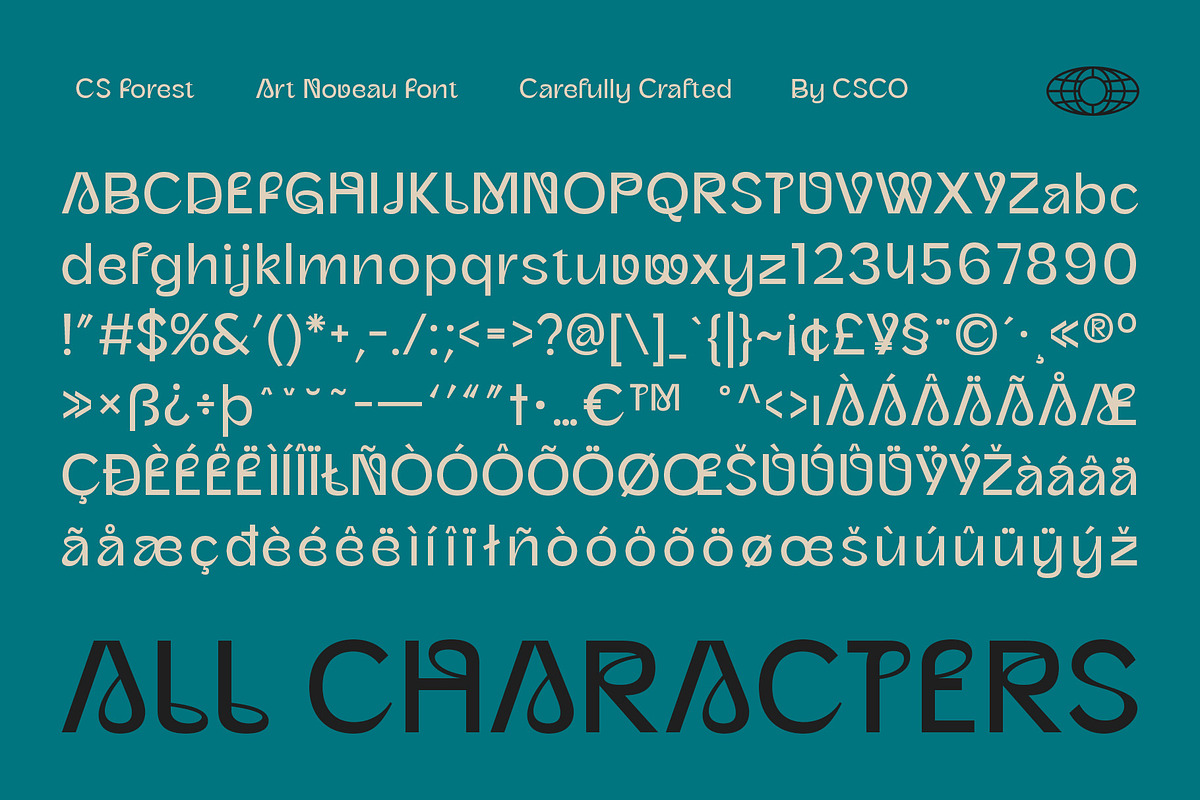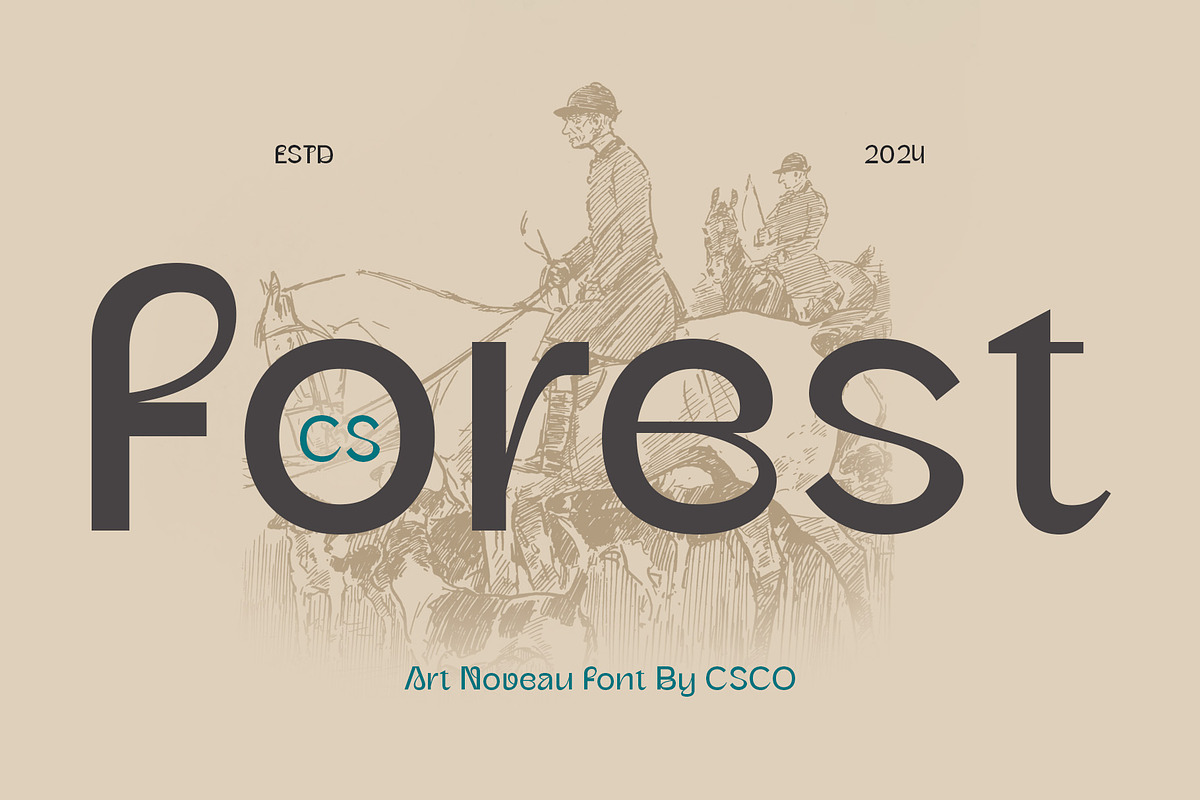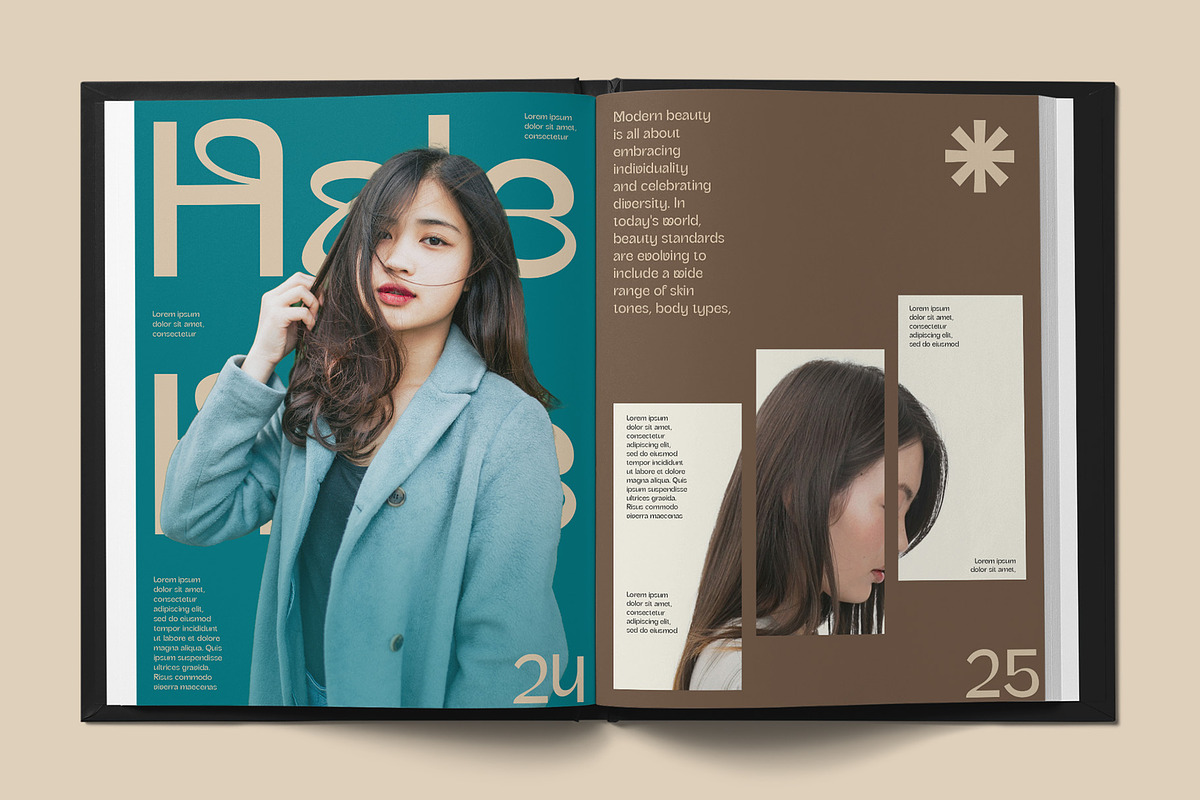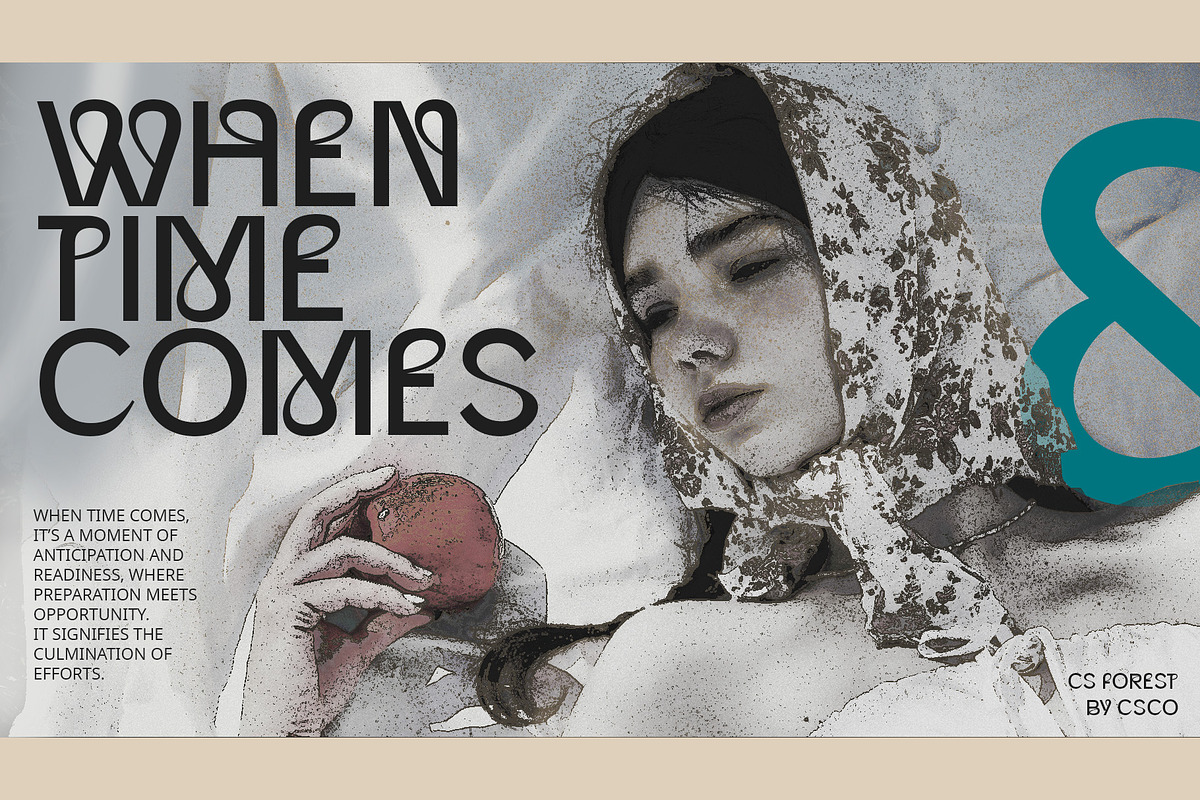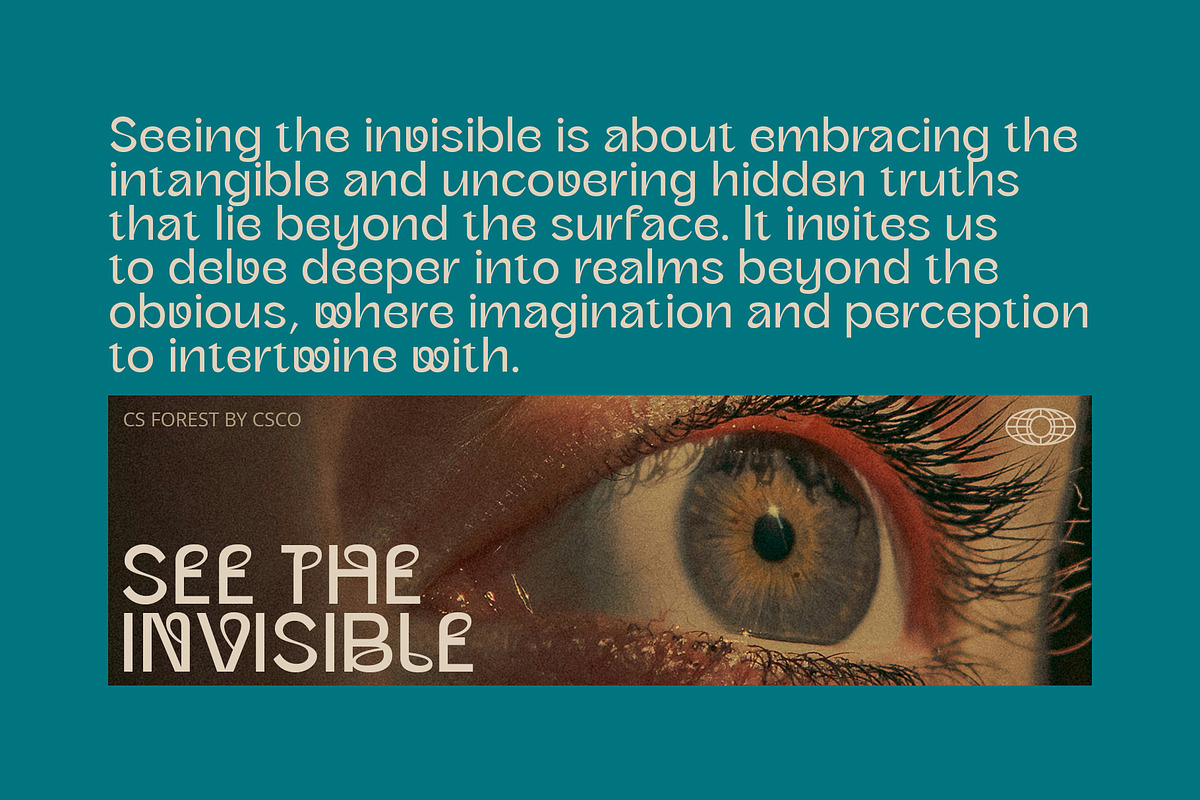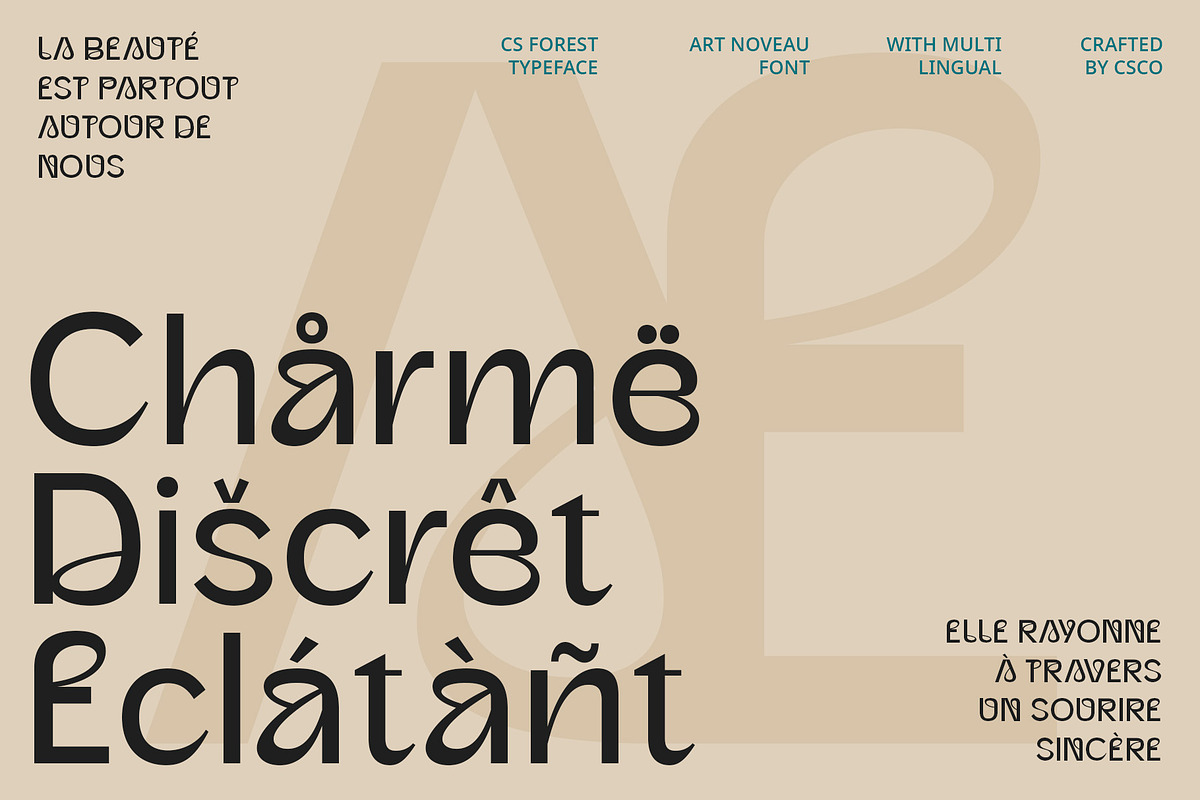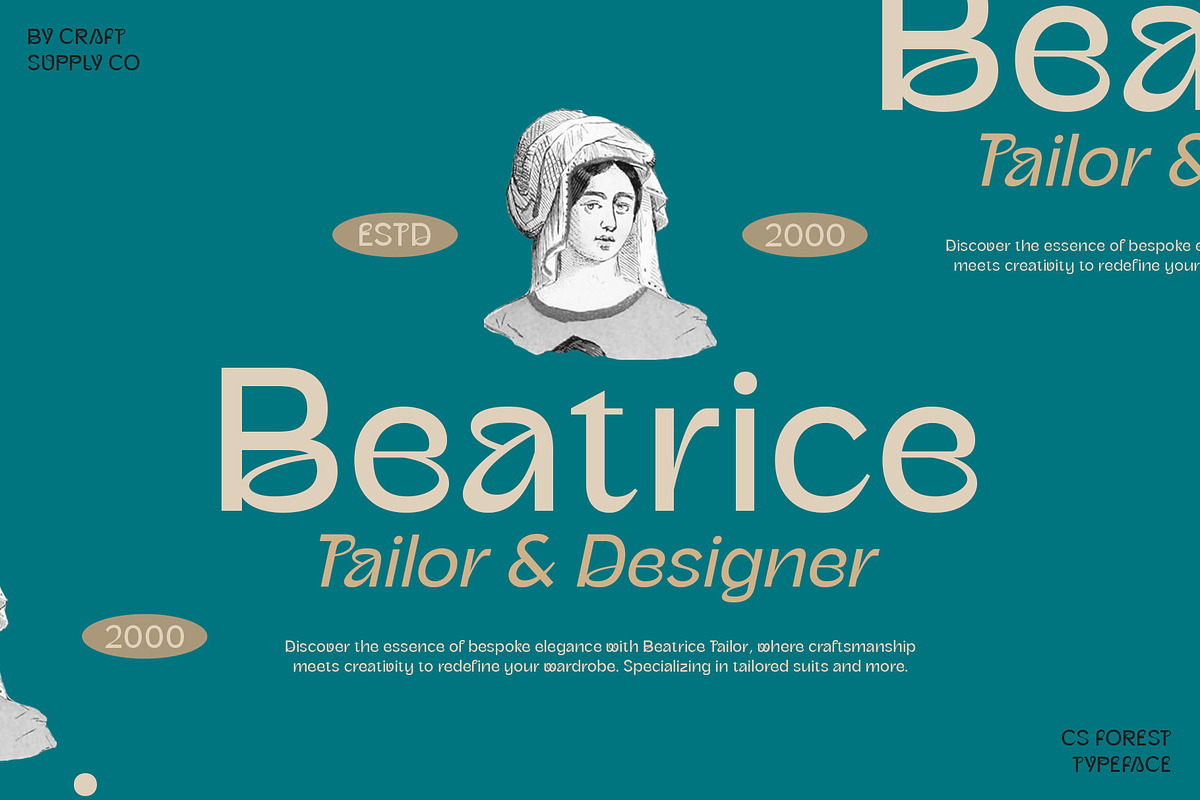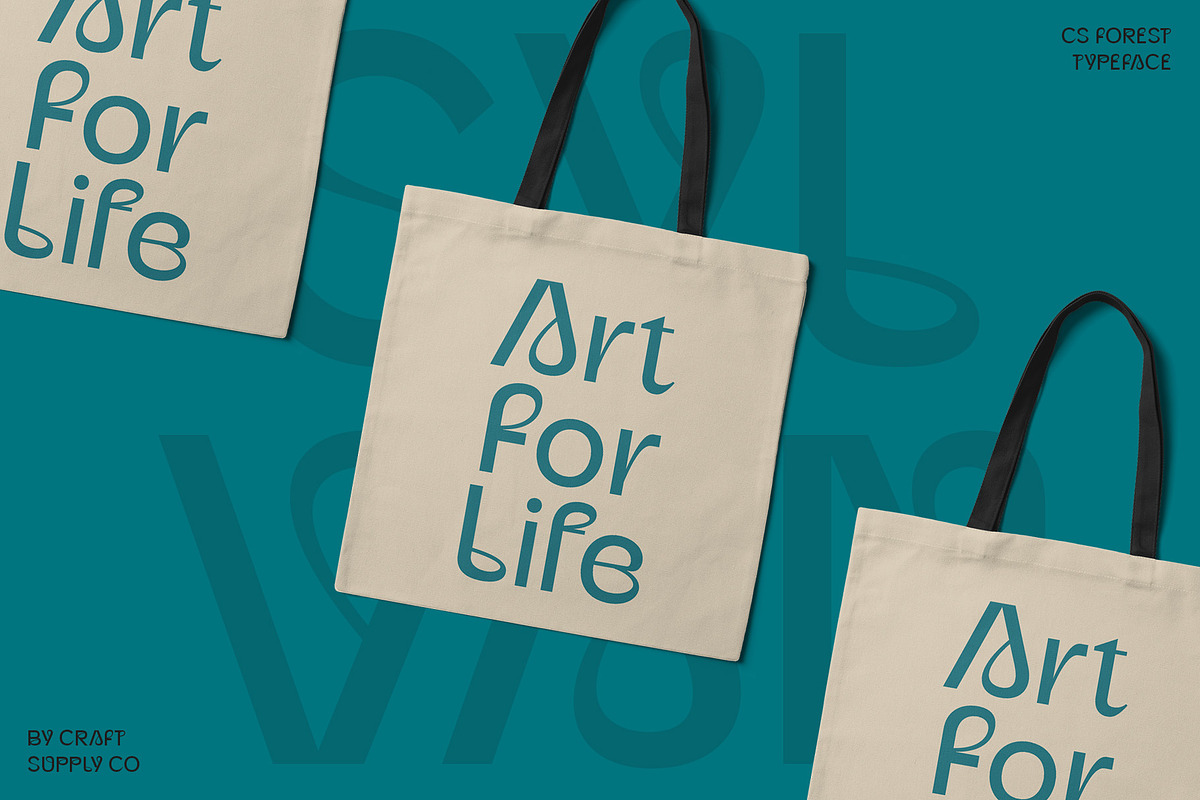
CS Forest – Art Nouveau Font
CS Forest: Art Nouveau Sans-Serif Font
Enchanting Beauty with Artistic Charm
CS Forest is a sans-serif font inspired by the elegance and fluidity of Art Nouveau. This font showcases enchanting beauty with its flowing lines and delicate curves, making it a perfect choice for projects seeking sophistication and artistic charm.
Graceful and Elegant Design
The flowing lines and delicate curves of CS Forest create a graceful and elegant appearance, embodying the timeless appeal of Art Nouveau. Each character is designed to reflect artistic charm, adding a captivating touch to any visual composition.
Ideal for Sophisticated Projects
Perfect for branding, invitations, and editorial designs, CS Forest enhances your projects with its sophisticated and artistic style. Whether used for logos, wedding invitations, or magazine layouts, this font adds a timeless and enchanting appeal to your designs.
Elevate Your Designs with CS Forest
Choose CS Forest to elevate your designs with a sans-serif font that embodies the beauty and elegance of Art Nouveau. This font ensures your projects achieve a captivating and timeless appeal, making them stand out with artistic charm and sophistication.